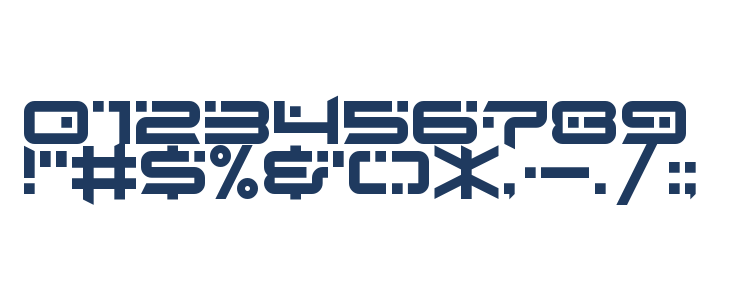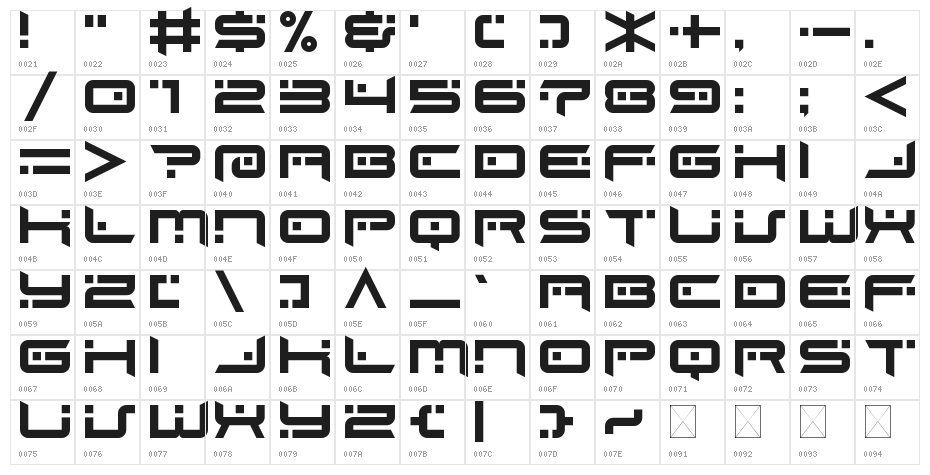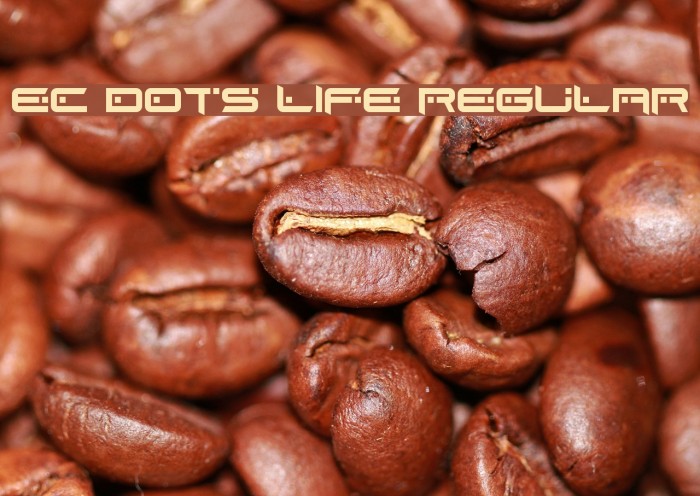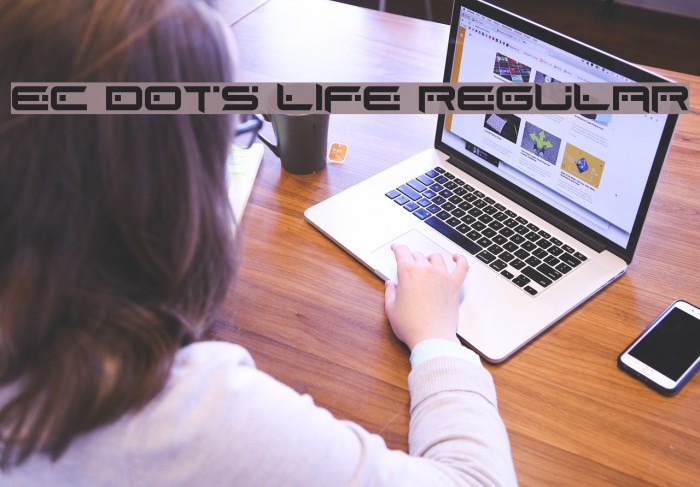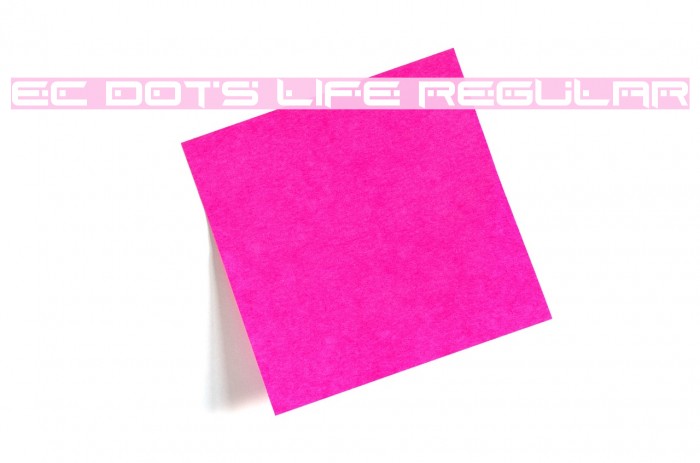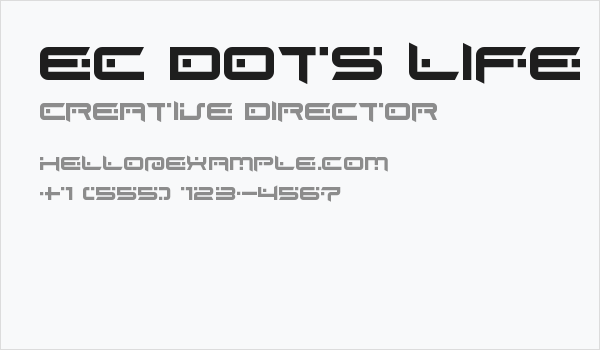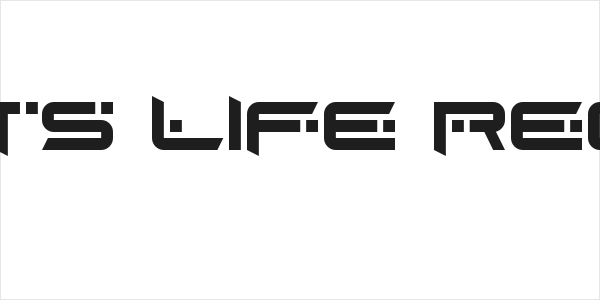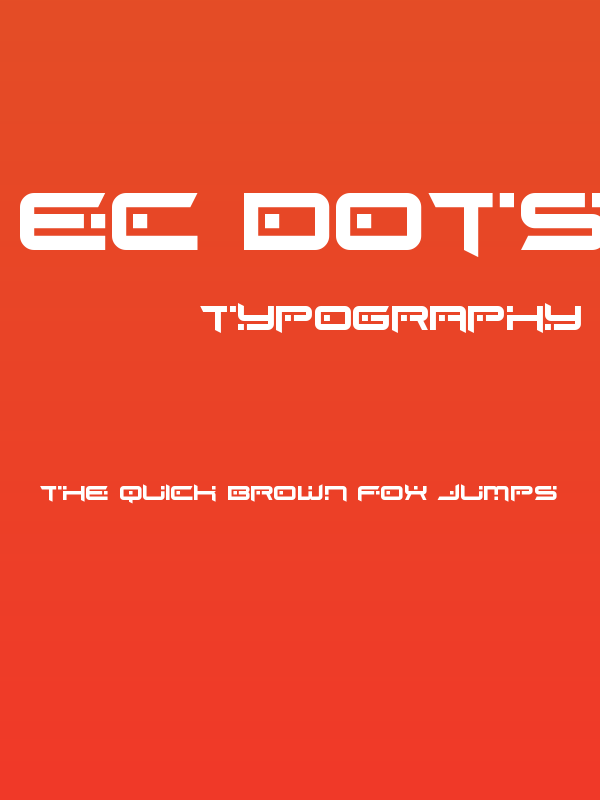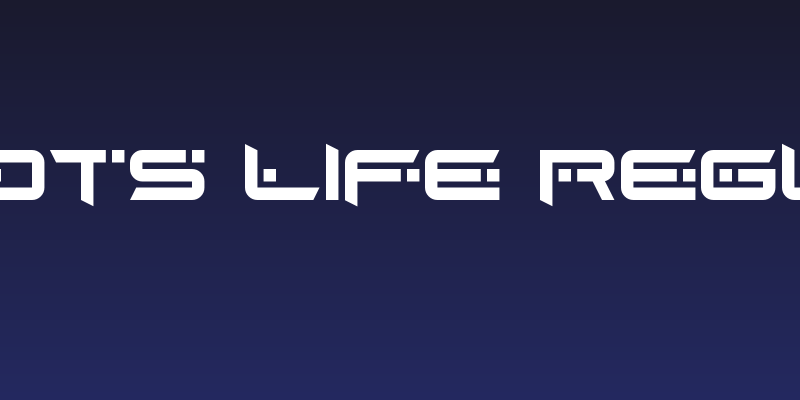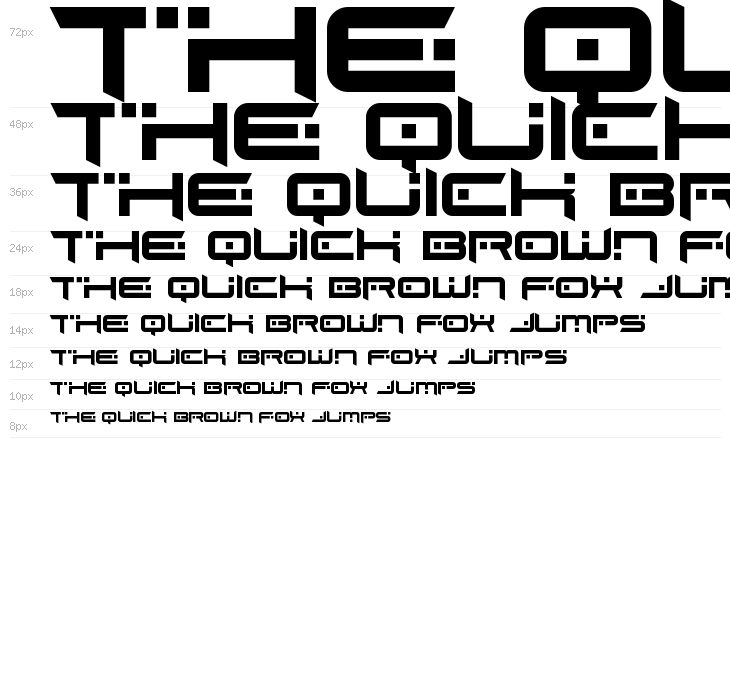
EC Dots Life Regular Font
EC Dots Life Regular Description
This font features a futuristic and geometric design, characterized by its bold and angular letterforms. Each character is constructed with a series of connected lines and dots, creating a digital or technological aesthetic. The uppercase and lowercase letters maintain a consistent style, with sharp edges and uniform spacing. The numerals and special characters are designed to match the overall theme, providing a cohesive look across all glyphs. This font is ideal for projects that require a modern and innovative appearance, such as tech branding, digital interfaces, or sci-fi themed designs.
| Use Case | Logos, Headlines, Digital interfaces |
| Proposed Projects | Ideal for tech branding, digital interfaces, sci-fi themed designs, and modern advertising. |